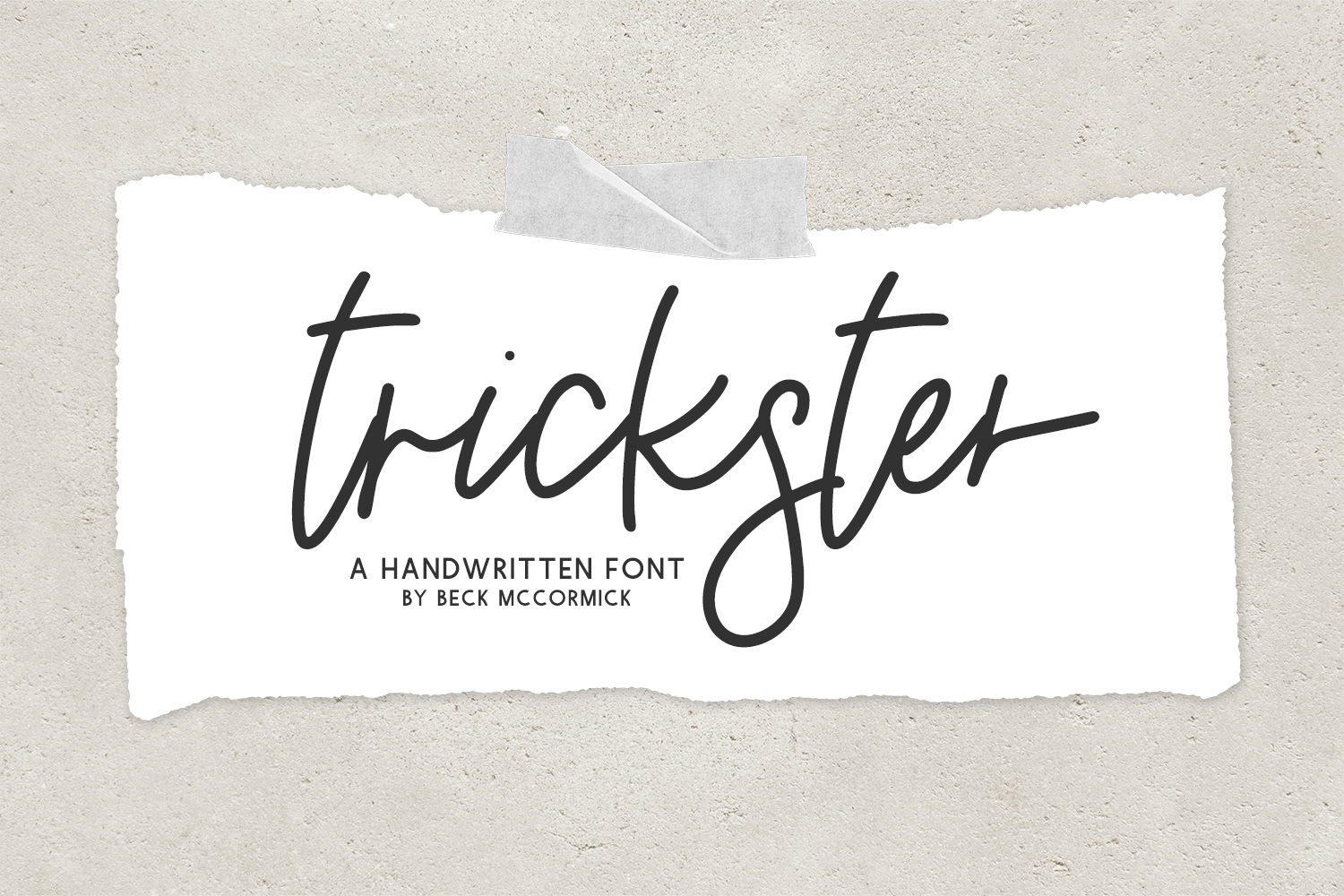
Introducing Trickster, a modern handwriting font.
Trickster is best for:
- modern projects with your Cricut or Silhouette machine, or your SVG design business
- farmhouse decor and crafts
- digital planners & apps like Goodnotes
- website design + website accents, blog design
- graphic tee shirt design & other apparel
Trickster includes:
- 26 alternate characters